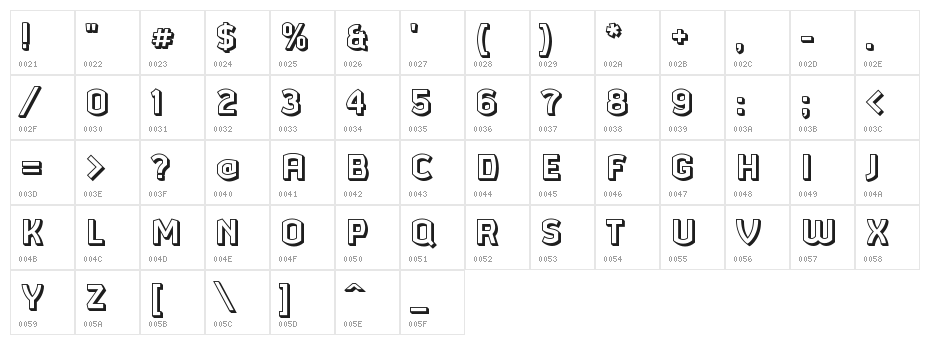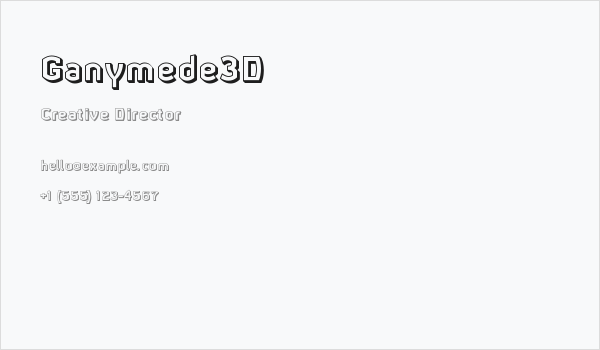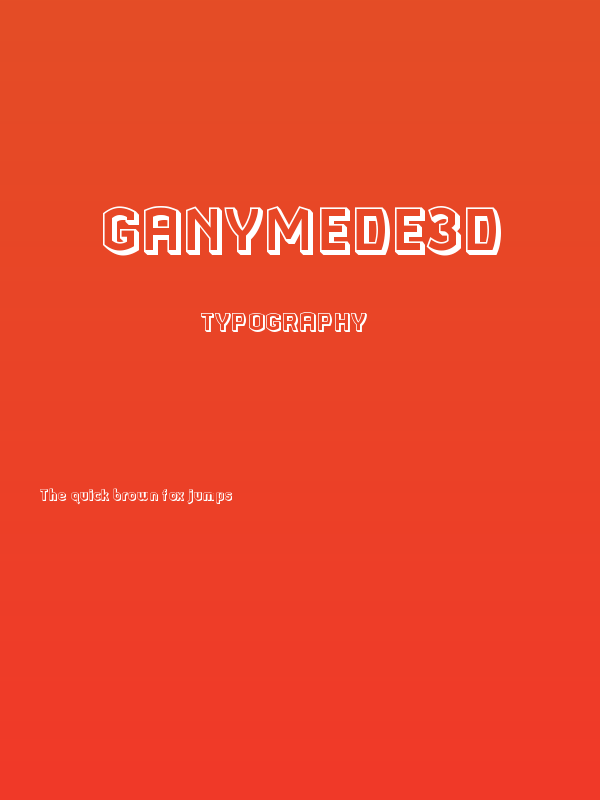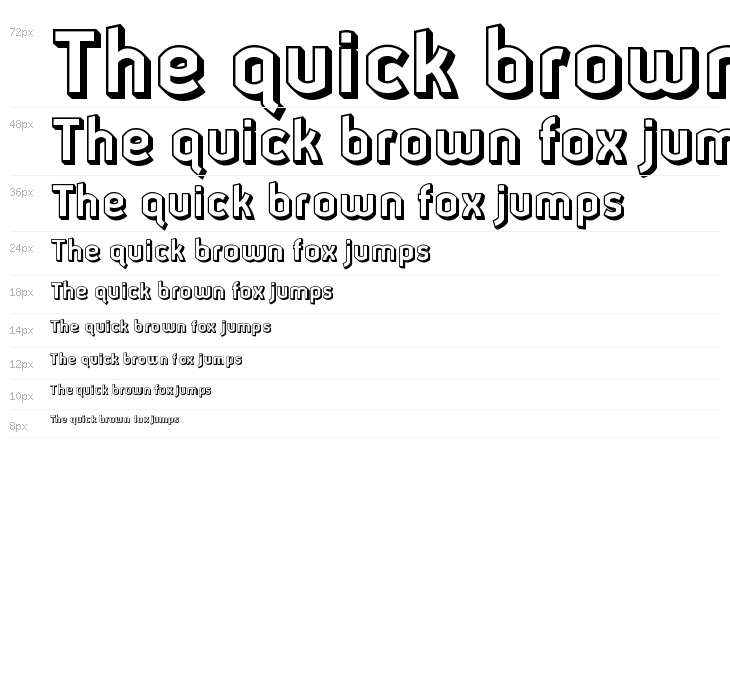
Ganymede3D Font
Ganymede3D Description
This font features a bold and striking 3D effect, with each character appearing to pop off the page. The letters are capitalized and have a strong, geometric structure, giving them a modern and futuristic appearance. The edges are sharp and well-defined, with a consistent thickness throughout each character. The font includes both uppercase and lowercase letters, numerals, and a variety of special characters, making it versatile for different design needs. The 3D effect is achieved through a clever use of shading and perspective, adding depth and dimension to the text.
Proposed ProjectsIdeal for projects requiring a standout title or headline, such as posters, advertisements, or video game graphics.